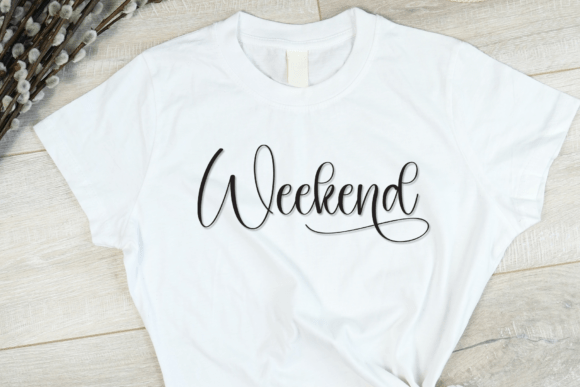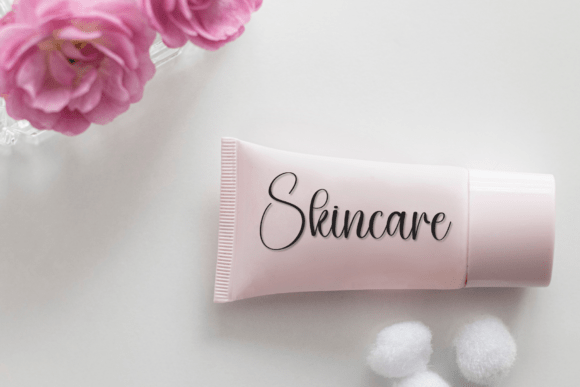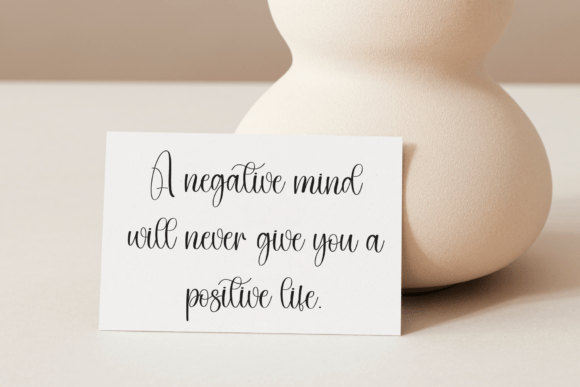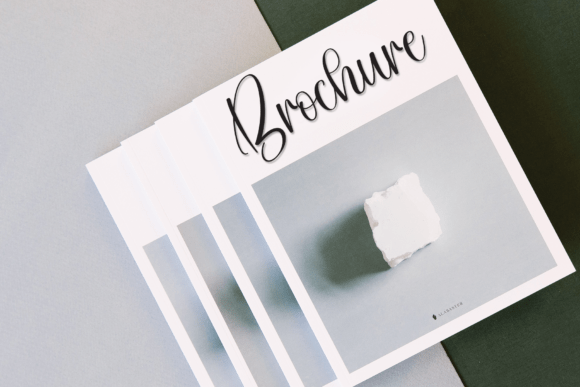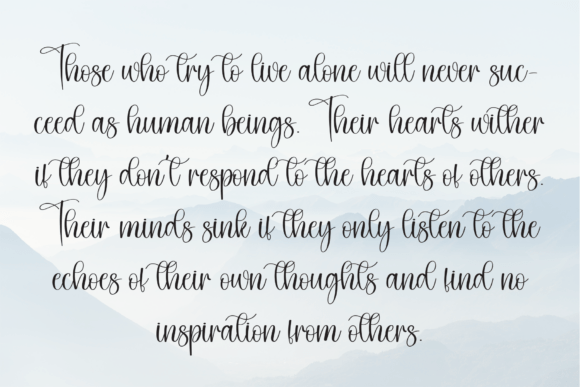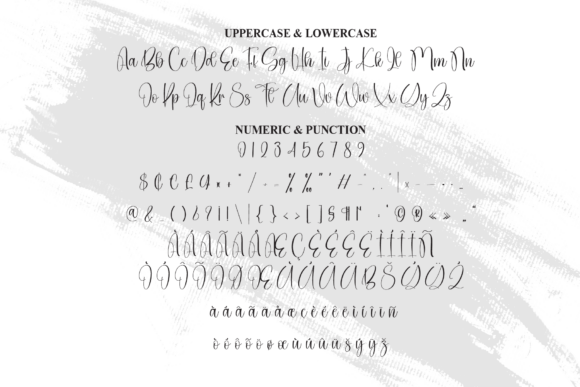
The Elegance of Brushtick Font: A Designer’s Delight
I still remember the project that led me to discover the Brushtick font. I was working on a logo design for a high-end boutique client, and I was struggling to find the perfect font that exuded elegance and sophistication. The client wanted a design that felt luxurious, yet modern and fresh. After hours of scouring font libraries and testing various options, I stumbled upon Brushtick. Its fluid curves and carefully crafted letterforms immediately caught my eye, and I knew I had found the perfect fit.
The Good ✨
- ✅ Elegant and sophisticated design that’s perfect for high-end projects
- ✅ Fluid curves and carefully crafted letterforms that give it a hand-drawn feel
- ✅ Versatile and can be used for a variety of design projects, from logos to social media graphics
- ✅ Natural flow and polished details that make it a joy to work with
The Not-So-Good 🤔
- ⚠️ Some users may find the font a bit too ornate for certain projects
- ⚠️ Limited use of uppercase letters, which may not be ideal for all designs
- ⚠️ May not be suitable for very small font sizes, as some details may get lost
The Story Behind Brushtick: Designer Inspiration
Brushtick was designed by a team of creatives who wanted to capture the essence of hand-drawn calligraphy with a modern twist. The font’s elegant strokes and fluid curves are inspired by traditional calligraphy, while its carefully crafted letterforms and polished details give it a contemporary feel.
| Font Name | Brushtick Font |
| Author | Misterletter.co |
| What type of projects is Brushtick best suited for? | Brushtick is ideal for logos, invitations, packaging, and social media graphics that require an elegant and sophisticated touch. |
| Does Brushtick support OpenType features? | Yes, Brushtick supports OpenType features, including glyphs and stylistic alternates, which can be accessed in compatible design software. |